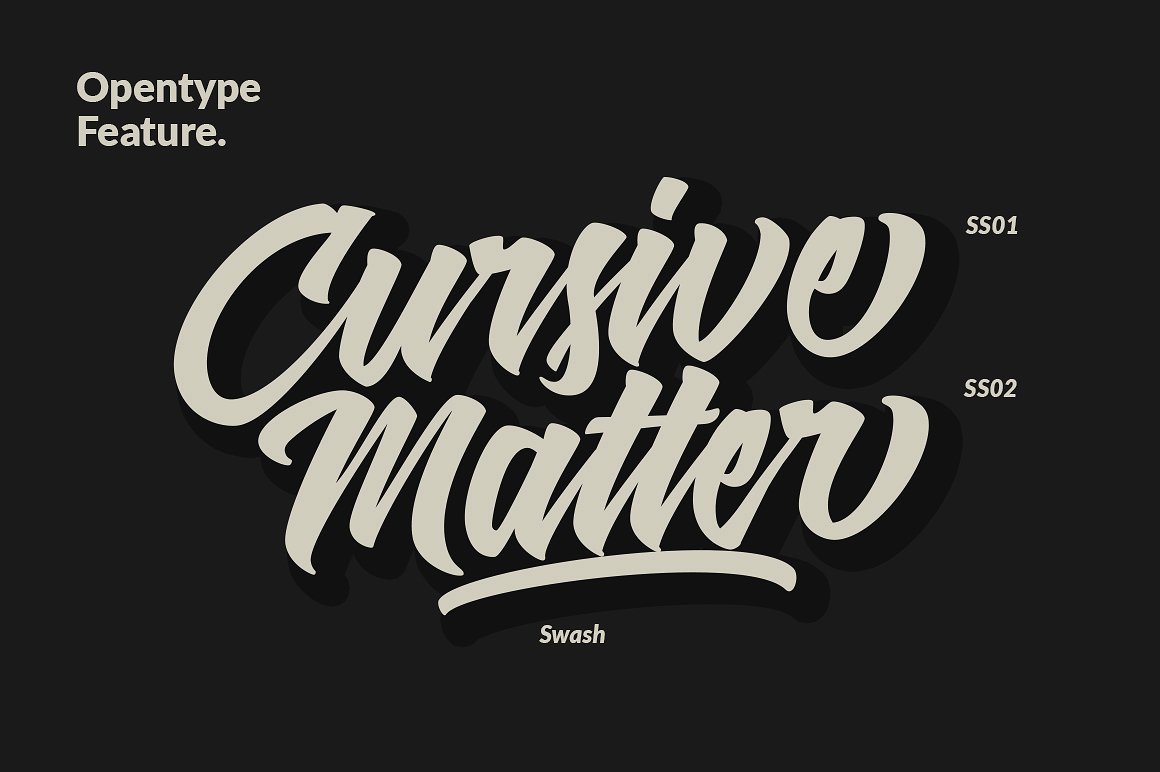
Shanders Script
Shanders Script Font
Shanders is a hand brush typeface, with authentic Clean Brush imperfections, and a very bouncy baseline It has a perfectly paired complimentary marker font , and a super handy set of bonus Swash. Ideal for logos, handwritten quotes, product packaging, header, poster, merchandise, social media & greeting cards.